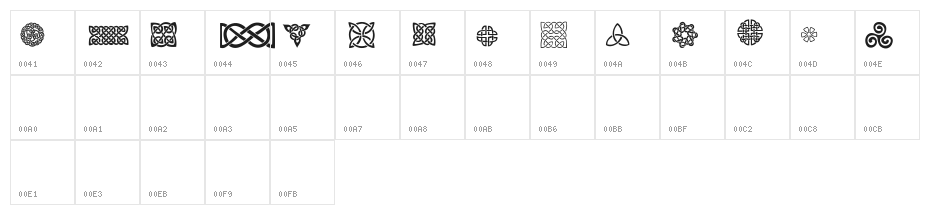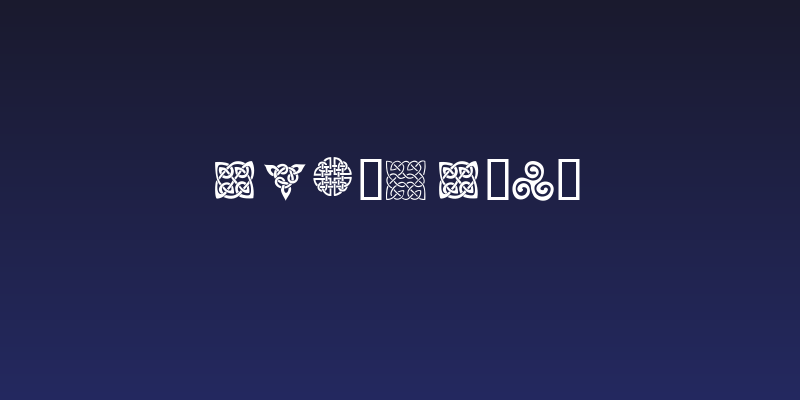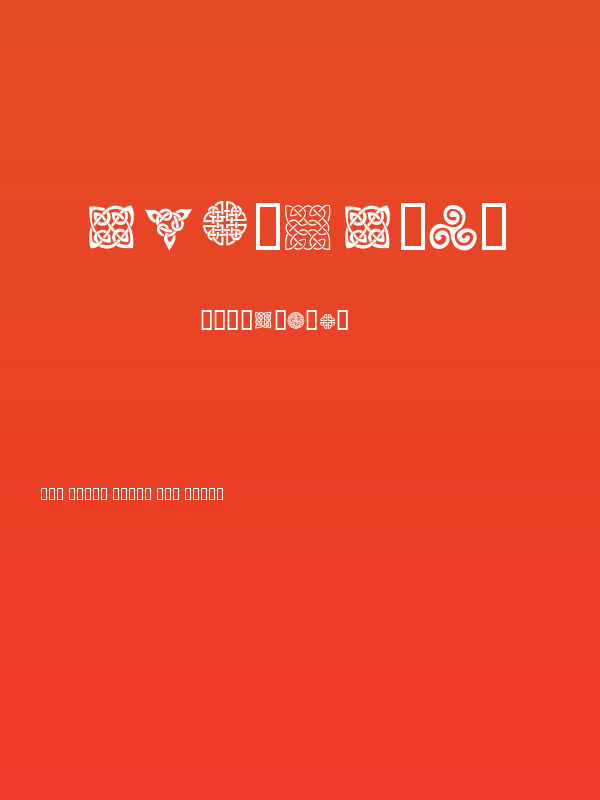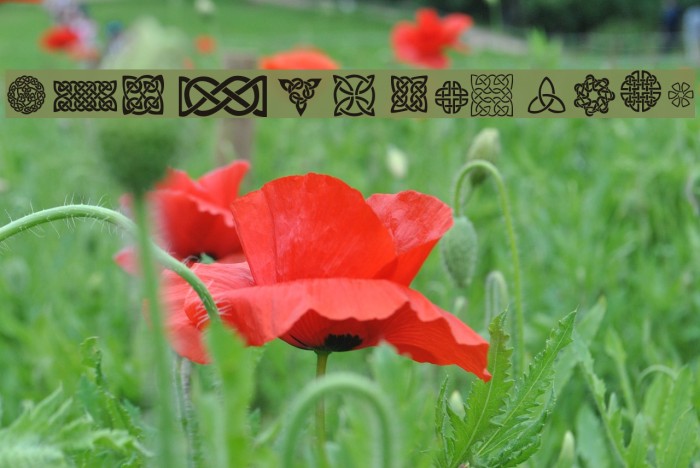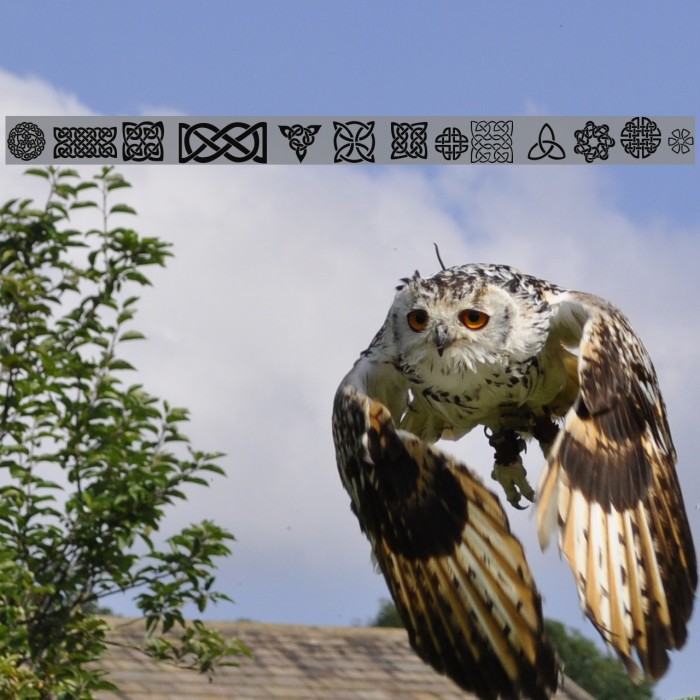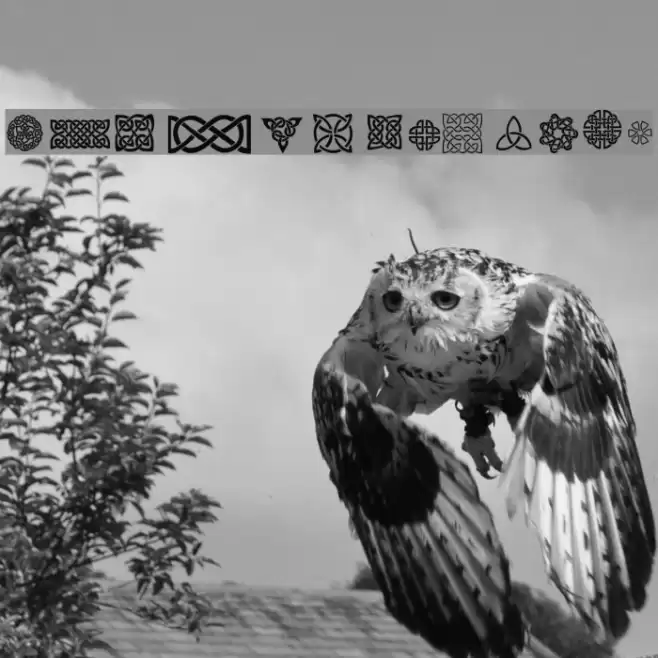
CeltiCons Font
CeltiCons Description
This set of symbols is inspired by traditional Celtic designs, featuring intricate knots and patterns that are emblematic of ancient Celtic art. The symbols are highly decorative, with each design showcasing a unique intertwining of lines and shapes that create a sense of endless loops and continuity. These motifs often symbolize eternity and interconnectedness, common themes in Celtic culture. The designs are bold and striking, making them suitable for use in projects that require a touch of historical or cultural depth. The symbols are presented in a monochrome style, allowing for easy integration into various design contexts.
| Use Case | Logos, Decorative elements, Cultural projects |
| Proposed Projects | Ideal for use in tattoo designs, cultural event branding, historical documentaries, or as decorative elements in graphic design projects. |